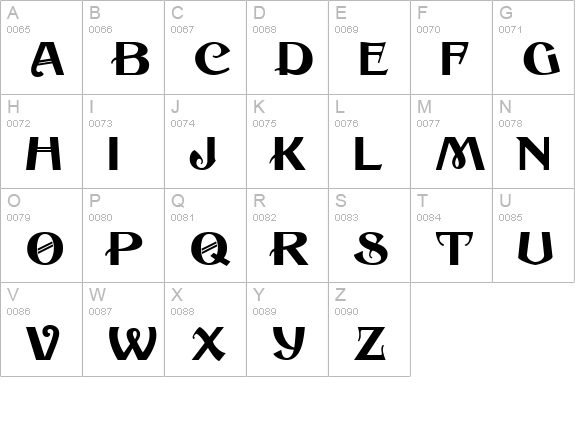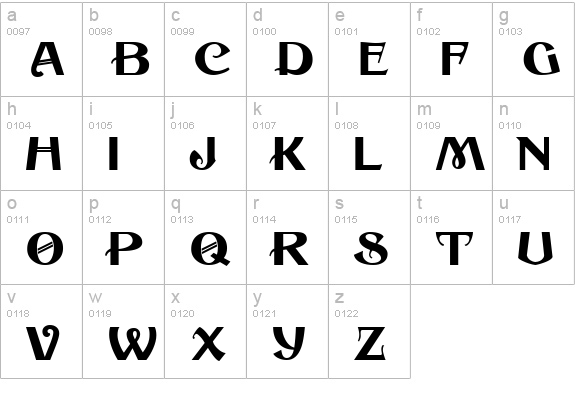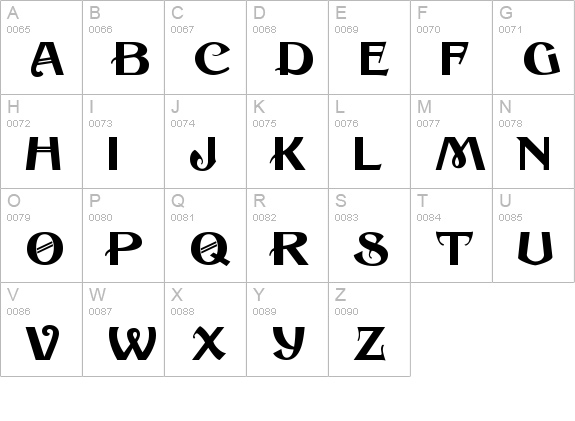
Coal Train JL Font Details
Coal Train JL font is a versatile and stylish typeface that exudes a sense of strength and industrial charm. With its bold and rugged appearance, this font is perfect for adding a touch of grit and authenticity to your design projects. Whether you're working on a poster, logo, or branding materials, Coal Train JL font will make a bold statement. What sets Coal Train JL font apart is that it is available for free download at FontsMarket.com. This means that you can easily access this unique and eye-catching font to enhance your creative projects without any cost. Don't miss out on the opportunity to add Coal Train JL font to your font collection and create stunning designs that stand out from the crowd.